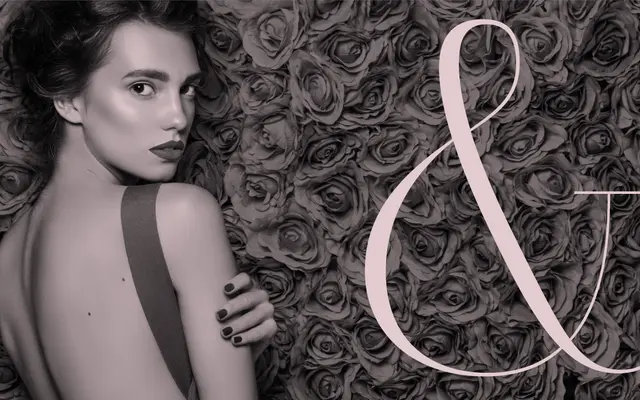
Barteldes
A display family drawn from 1906 Denver architectural lettering and early twentieth-century sign painting manuals, offered in six weights with size-specific optical cuts and swash capitals.
Six weights from Thin to Black are each supported by small, medium and large size-specific fonts that preserve hairlines at different scales, a practical consideration that reflects the family's origins in physical lettering traditions. Capital letters derive from architectural drawings by the Denver firm Gove & Walsh, built in 1906, while the lowercase follows exemplars from Frank Atkinson's 1909 manual 'Sign Painting Up to Now'. Swash capitals and coverage of over 200 languages extend its range well beyond its vernacular source material.
Rooted in early twentieth-century American architectural lettering and sign painting, Barteldes is a display family with strong vernacular credentials, making it firmly display rather than a conventional serif or sans classification.